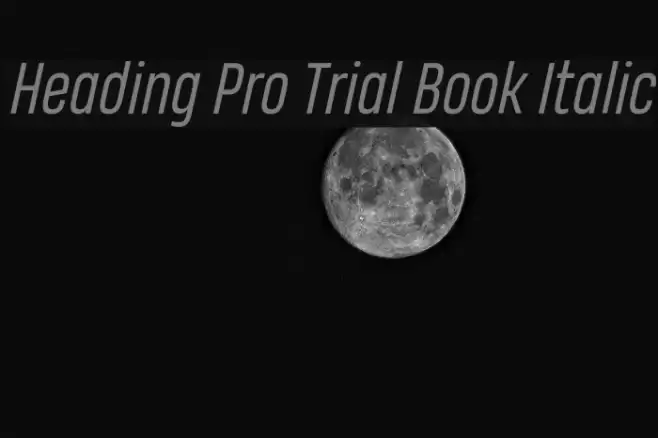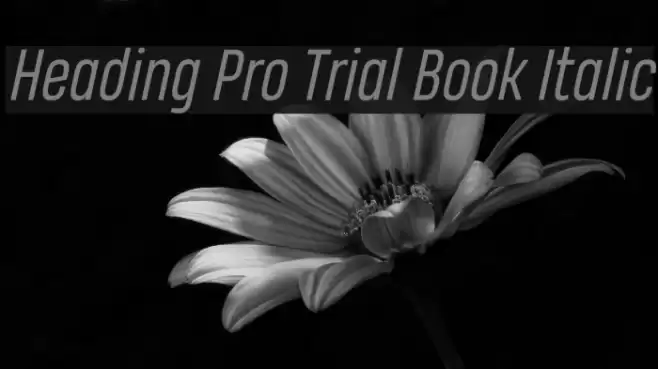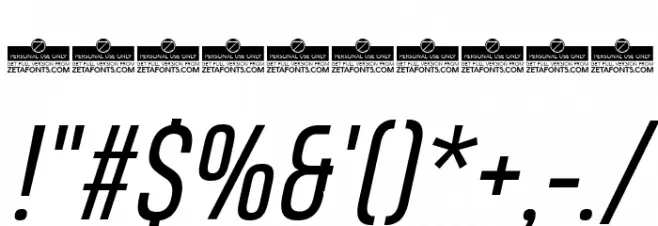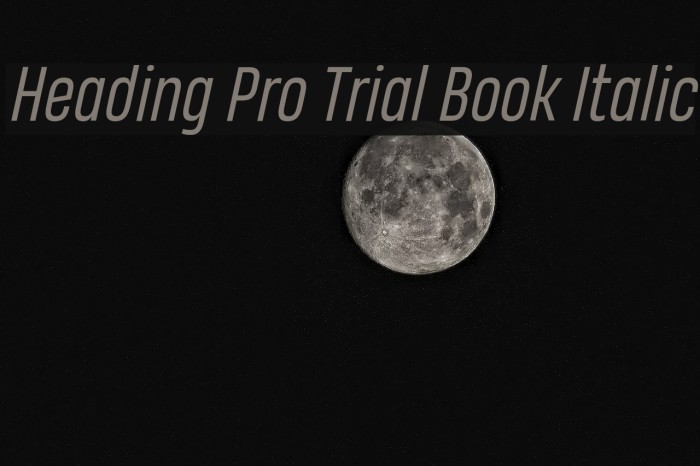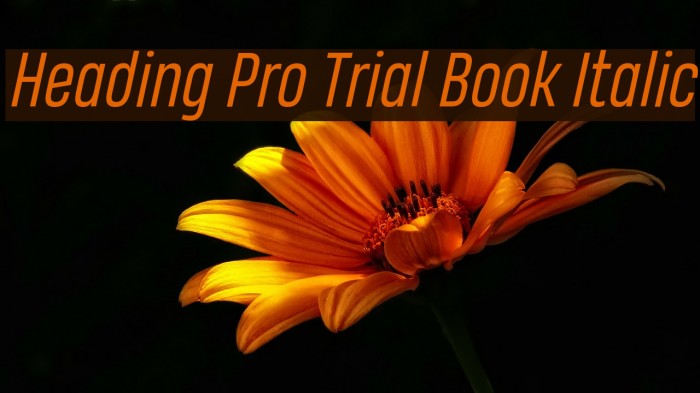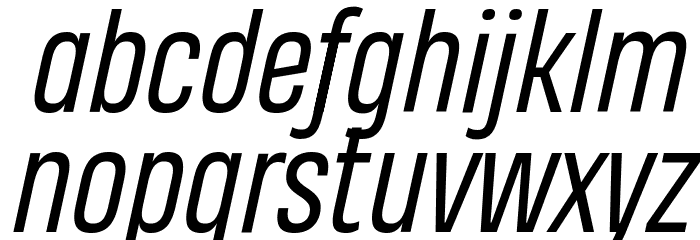
Heading Pro Trial Book Italic Font
Heading Pro Trial Book Italic Description
This font features a sleek and modern design with a slight italic slant, giving it a dynamic and forward-moving appearance. The characters are tall and narrow, contributing to a condensed look that is both stylish and efficient in space usage. The clean lines and smooth curves provide a professional and contemporary feel, making it suitable for a variety of design applications. The uppercase and lowercase letters maintain a consistent style, with a moderate contrast in stroke thickness that enhances readability while retaining a sophisticated aesthetic. The special characters are well-integrated, ensuring versatility in usage.
A modern, italic, and condensed font with clean lines and moderate contrast from Uncategorized fonts.
- Proposed Projects: Ideal for branding, editorial design, advertising, and digital interfaces where a modern and professional look is desired.
- Use Case: Headlines, Logos, Digital interfaces